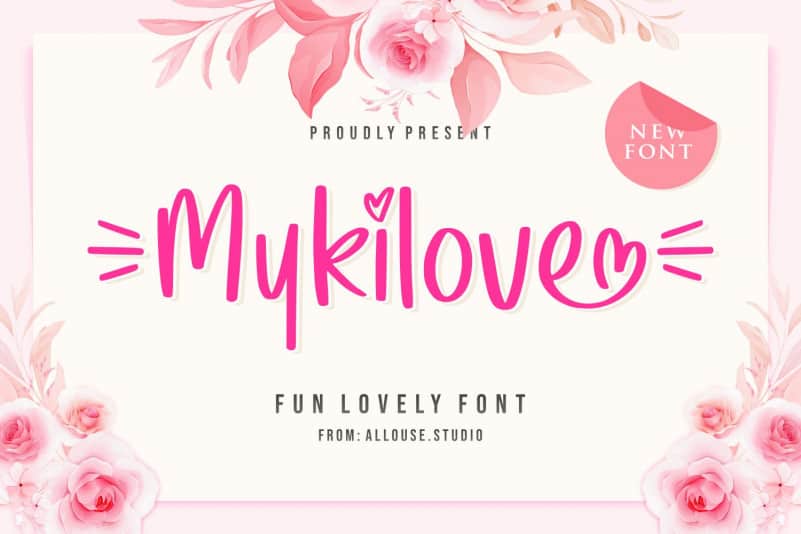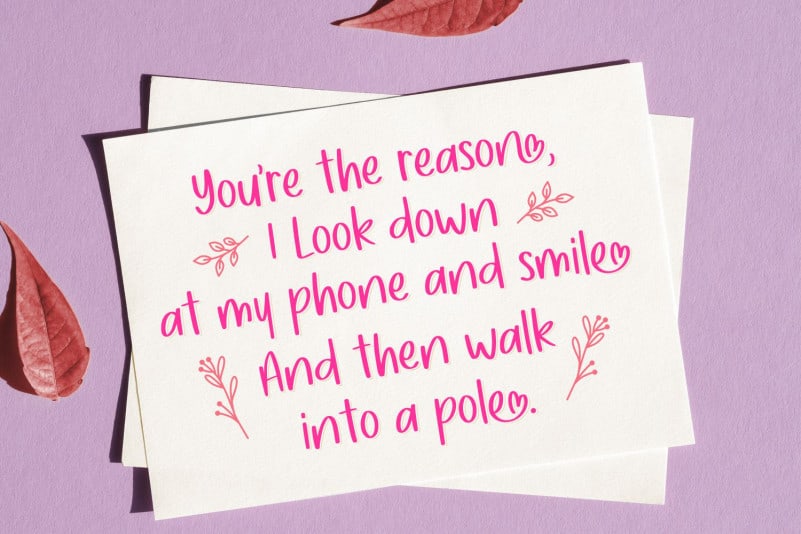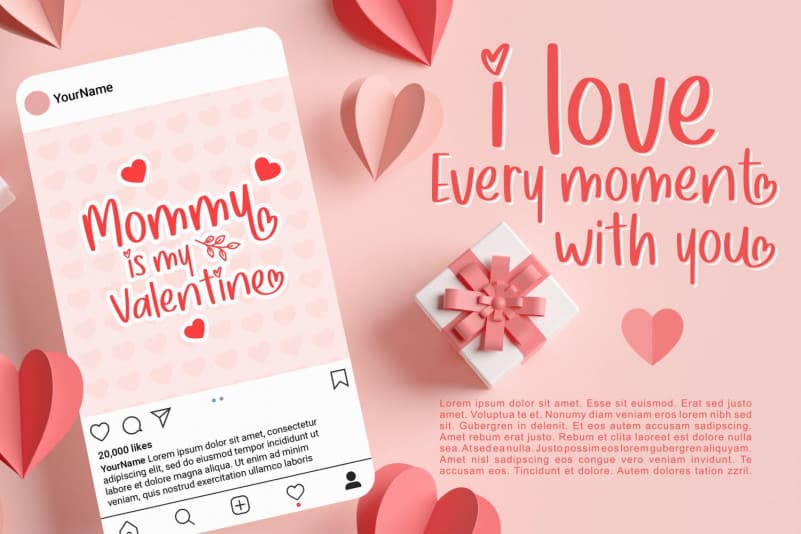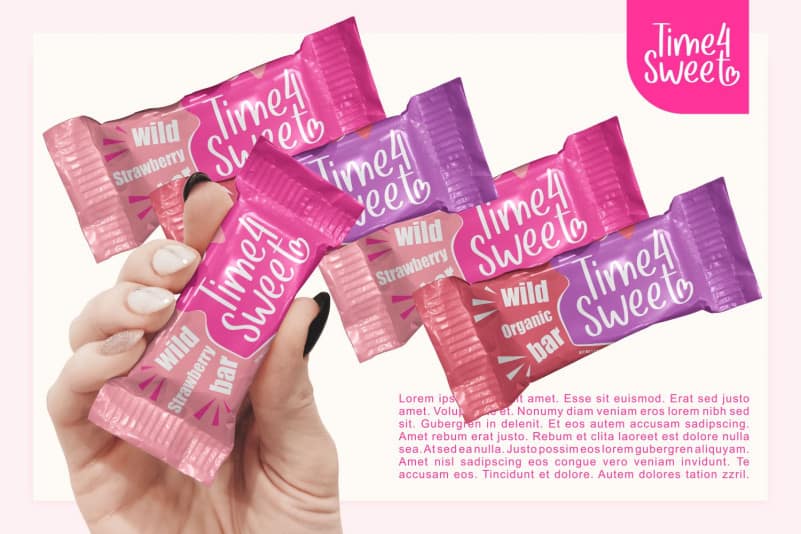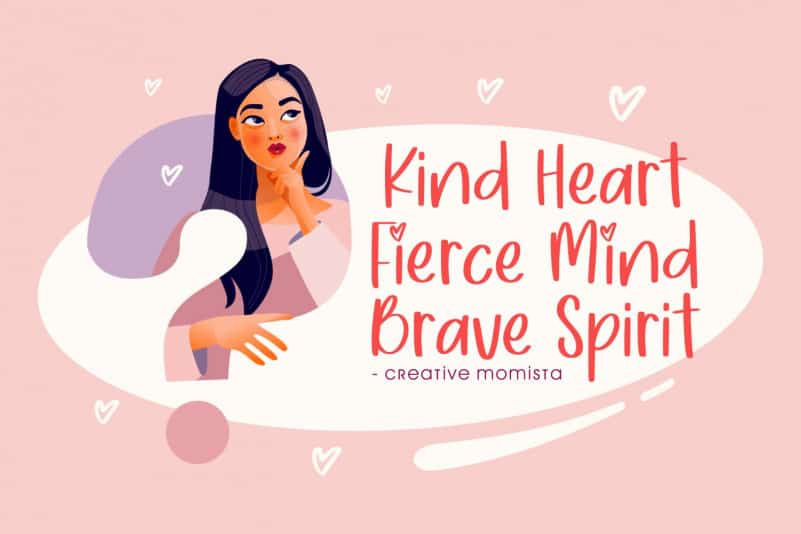
Mykilove Display Font
Mykilove Display Font is a cute & friendly display font. Get inspired by its incredibly youthful feel. Add this chunky lettered font to your designs and notice how it makes them come alive!